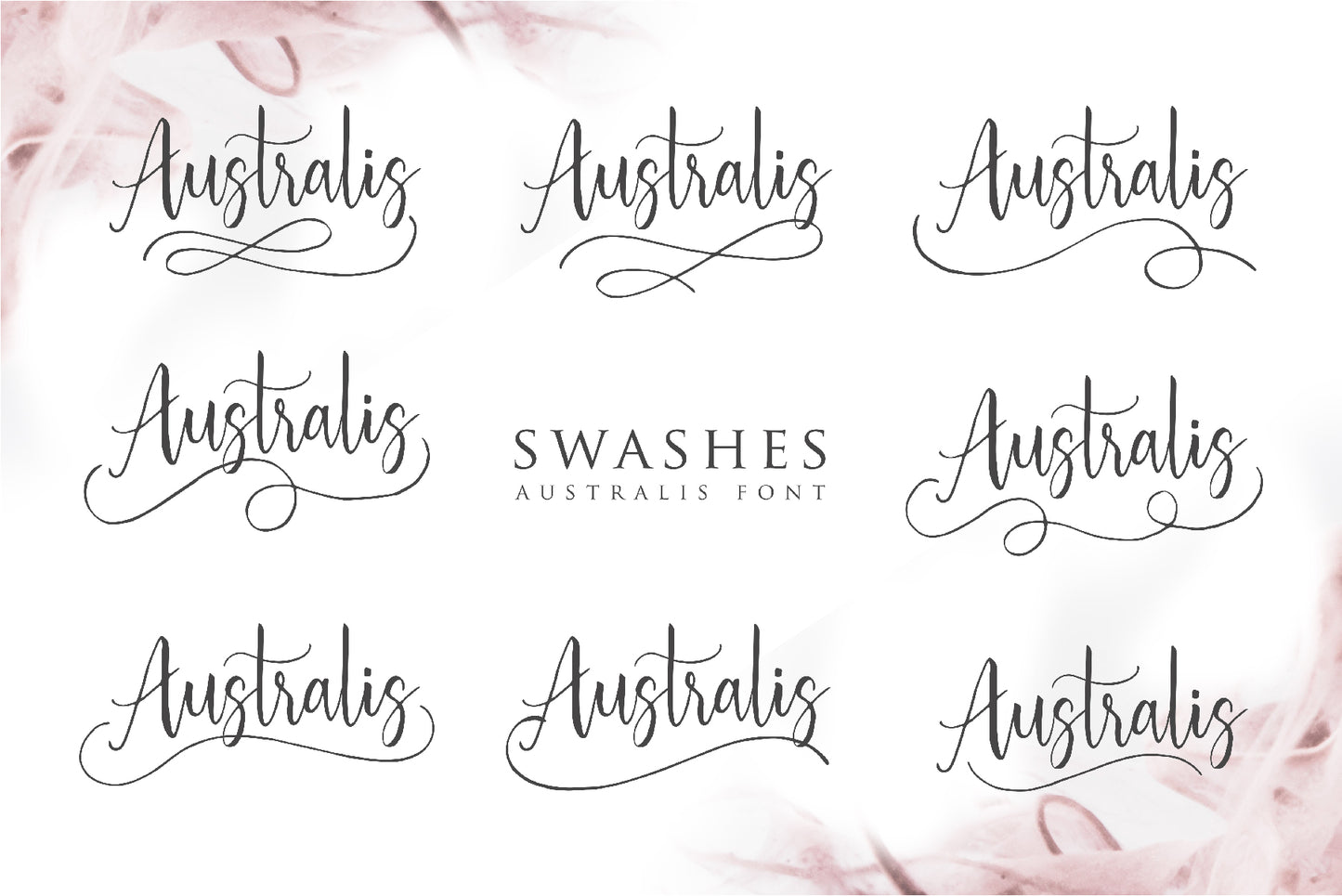
Free Australis Handwritten Script Font
Introducing you to the absolutely beautiful free australis – handwritten script font. Go give some love to Pixelify for creating this top-notch typeface. This is absolutely beautiful font so you can easily make world-class designs.